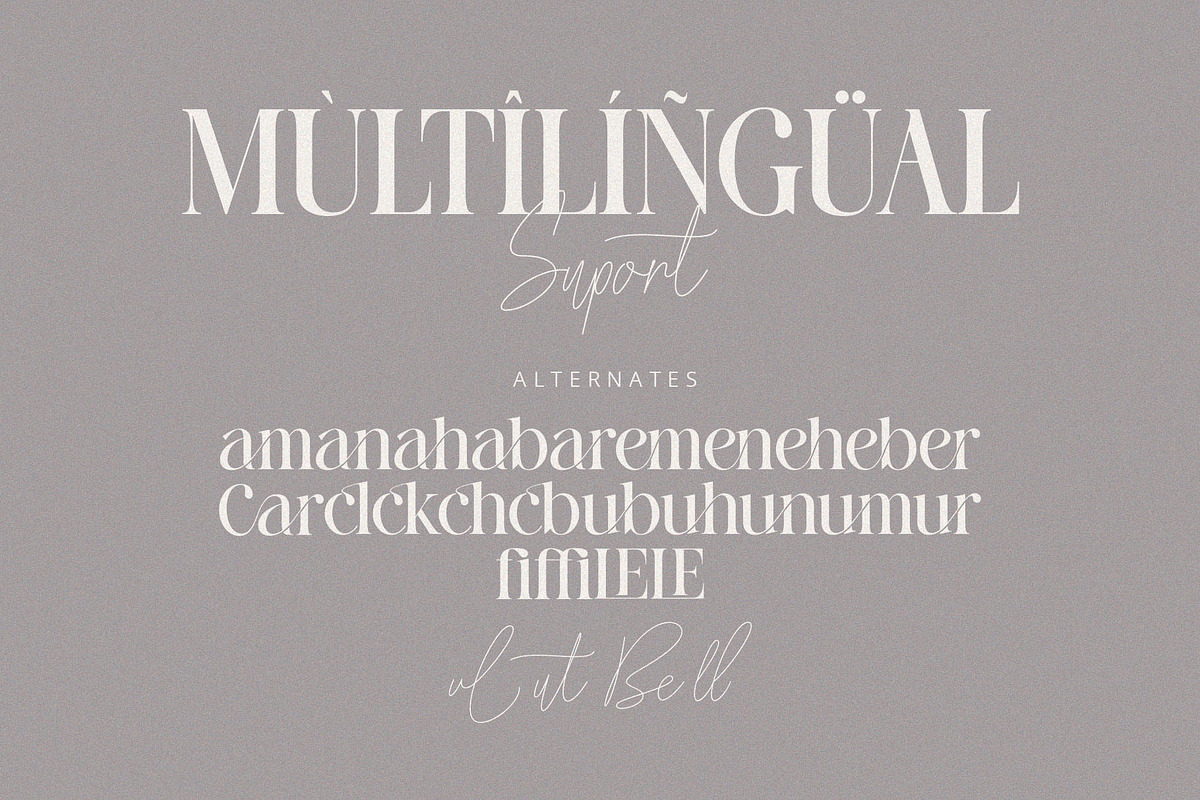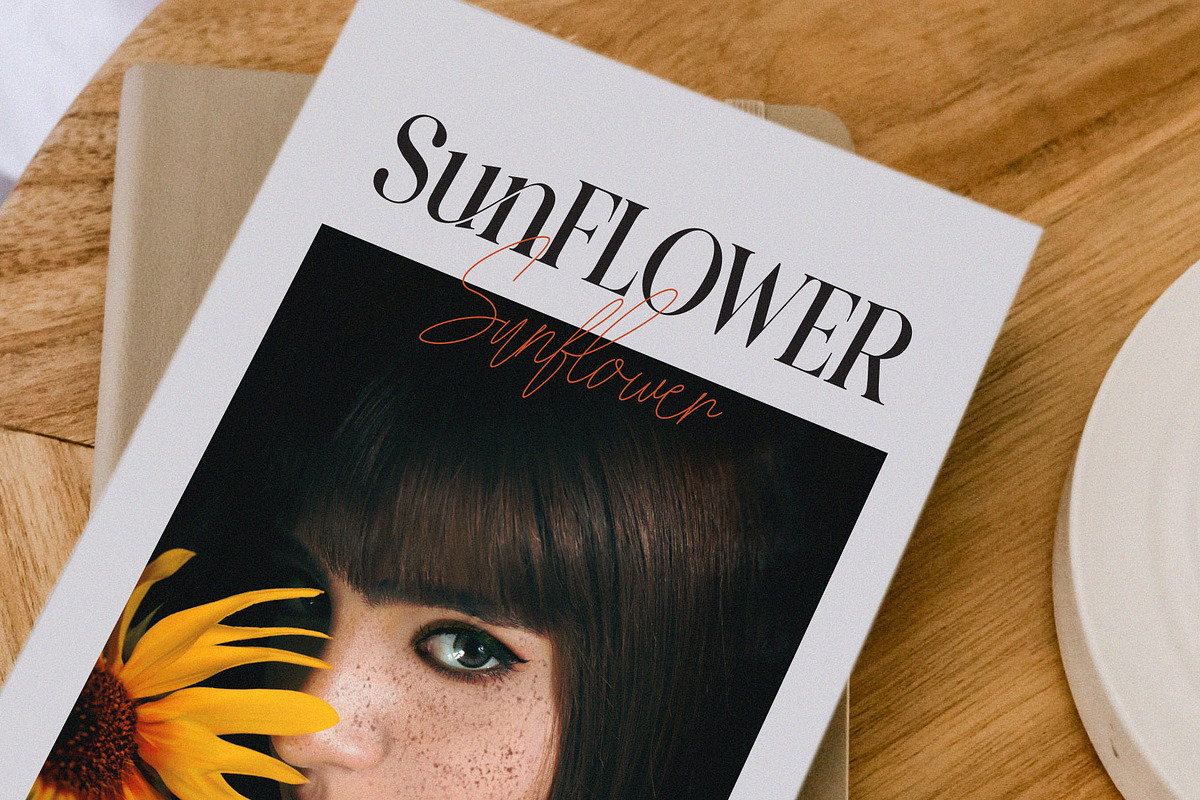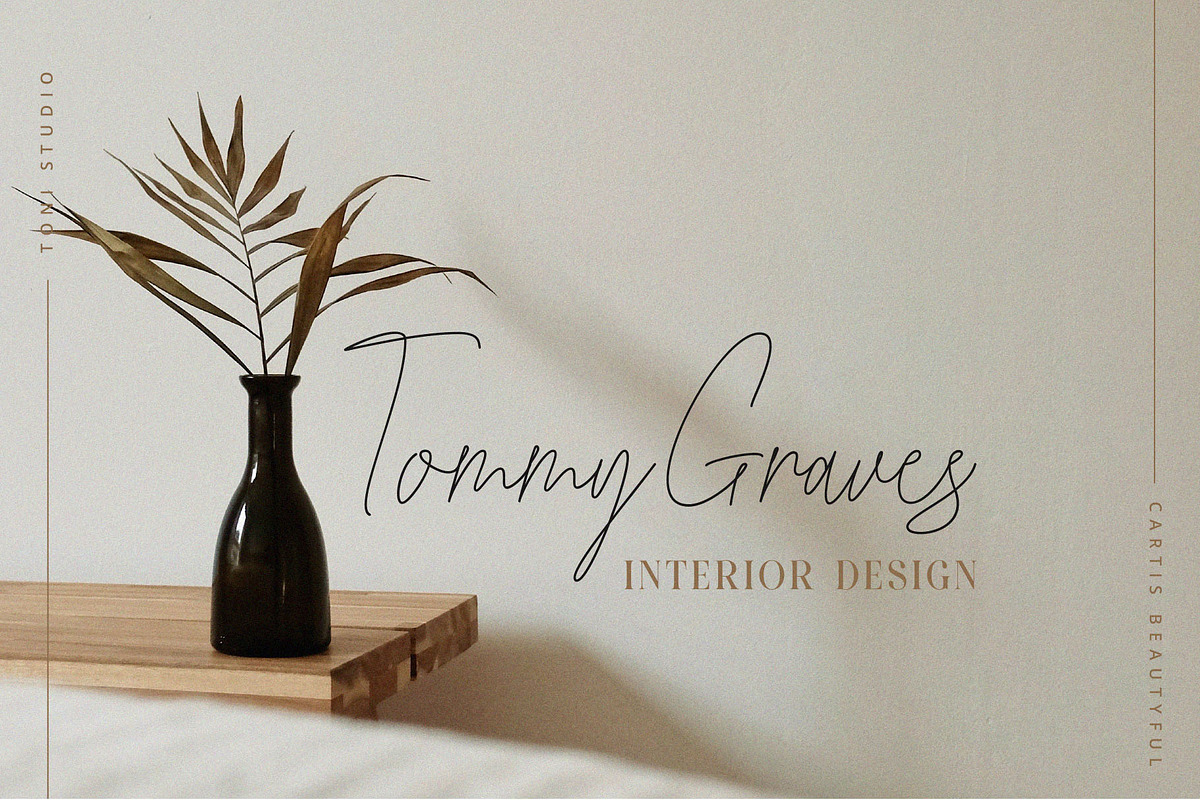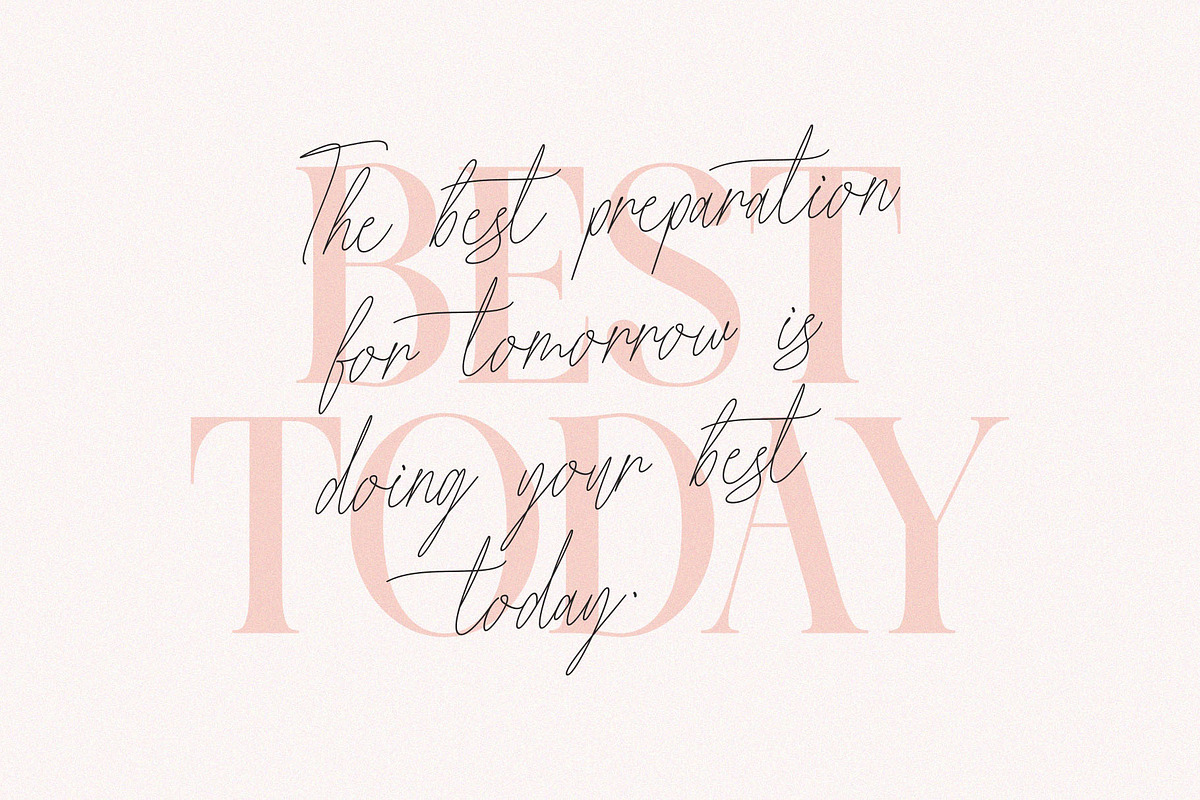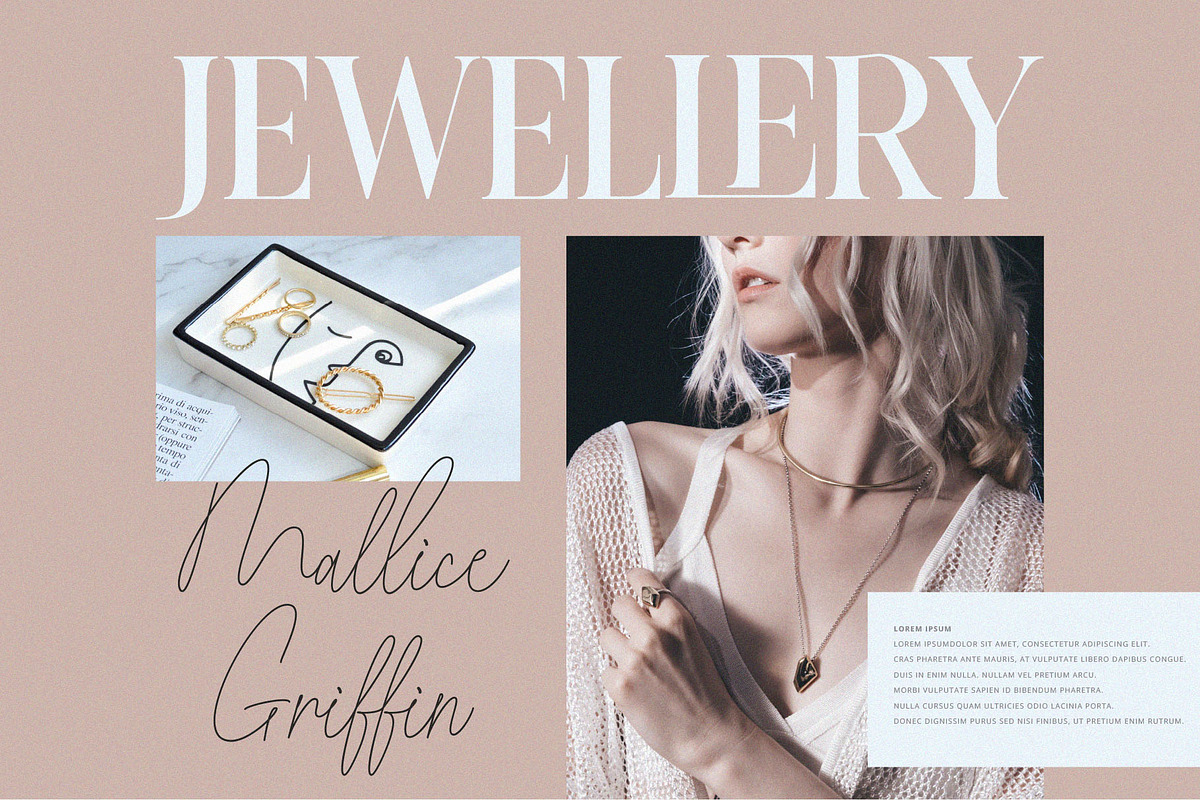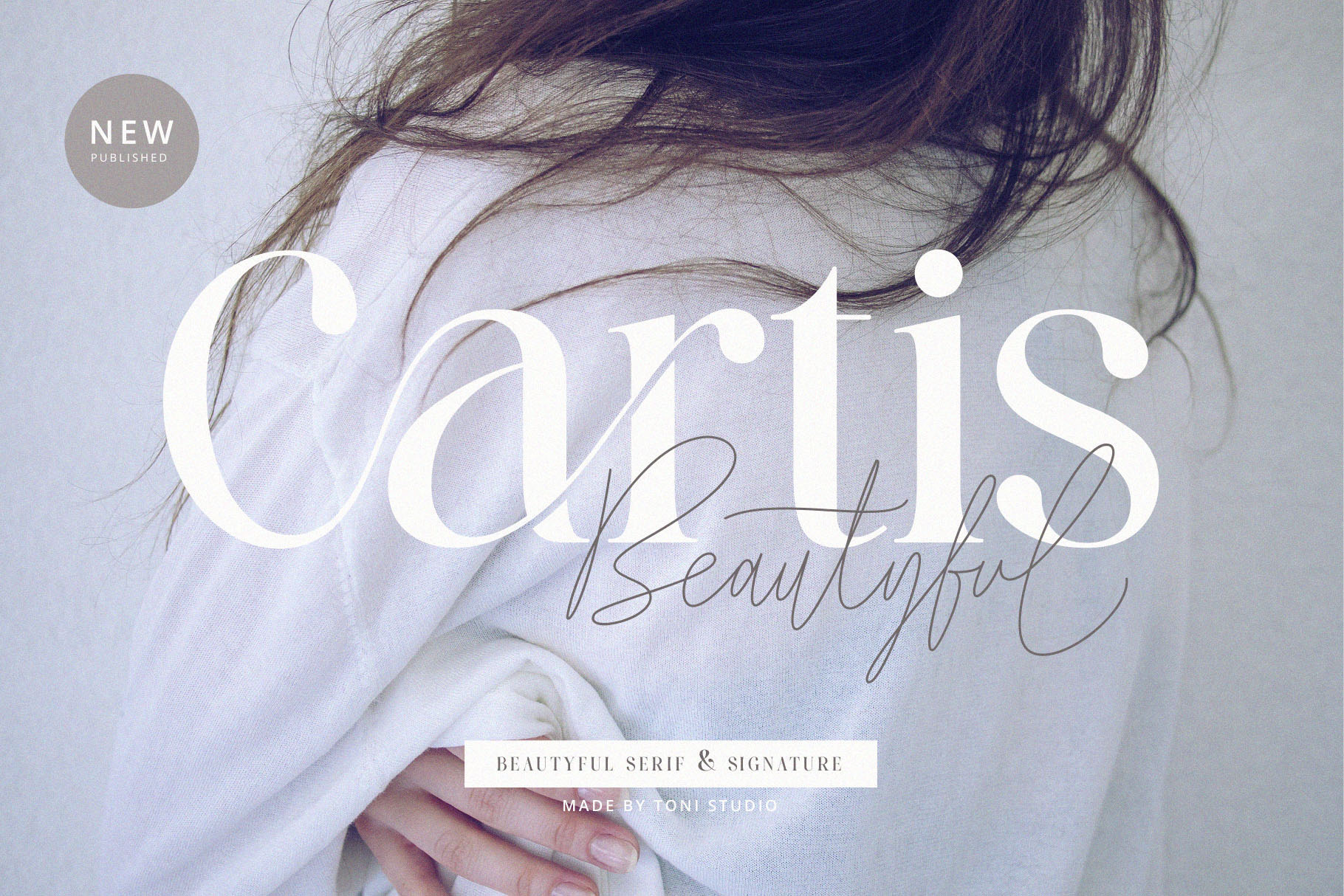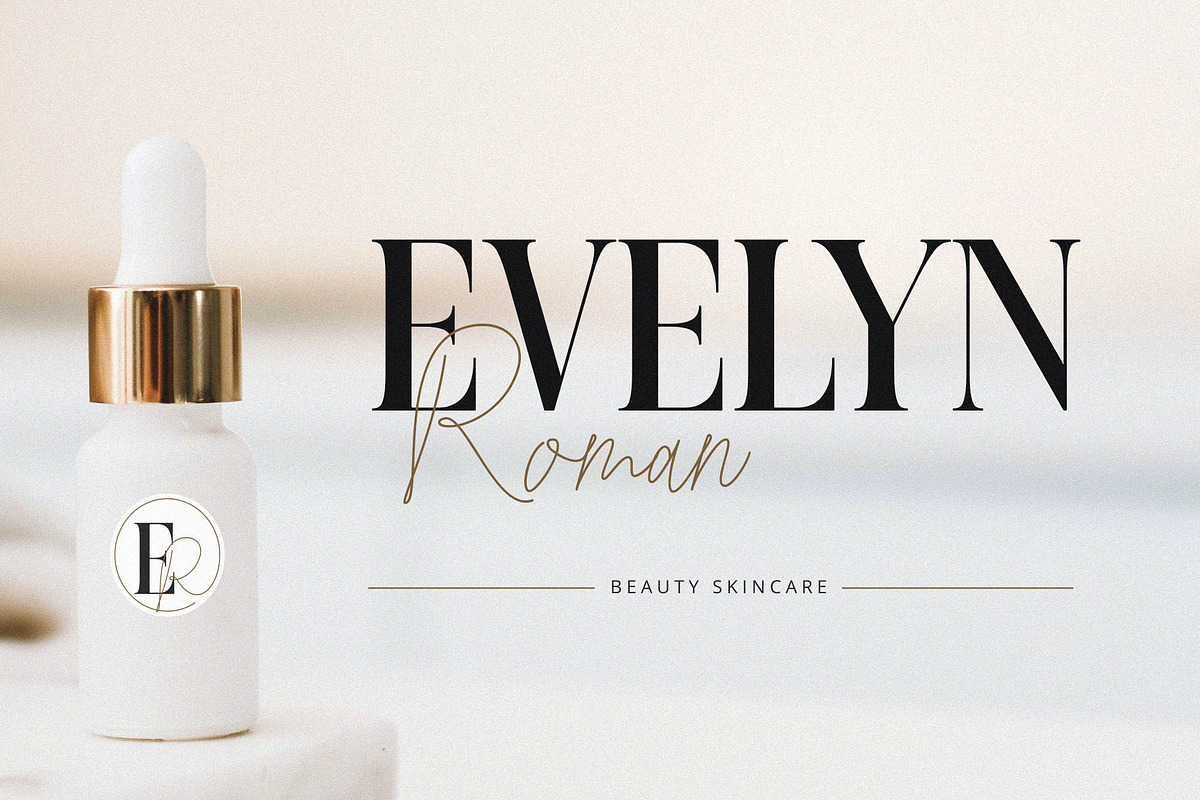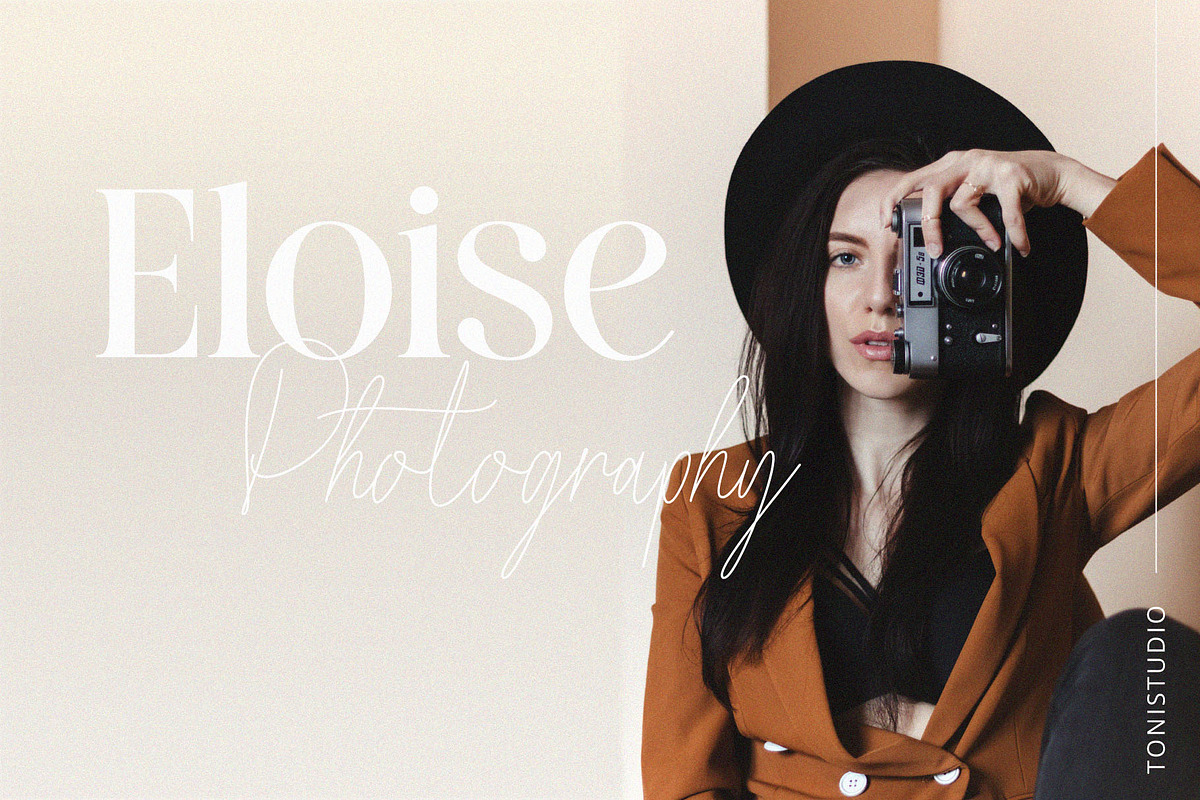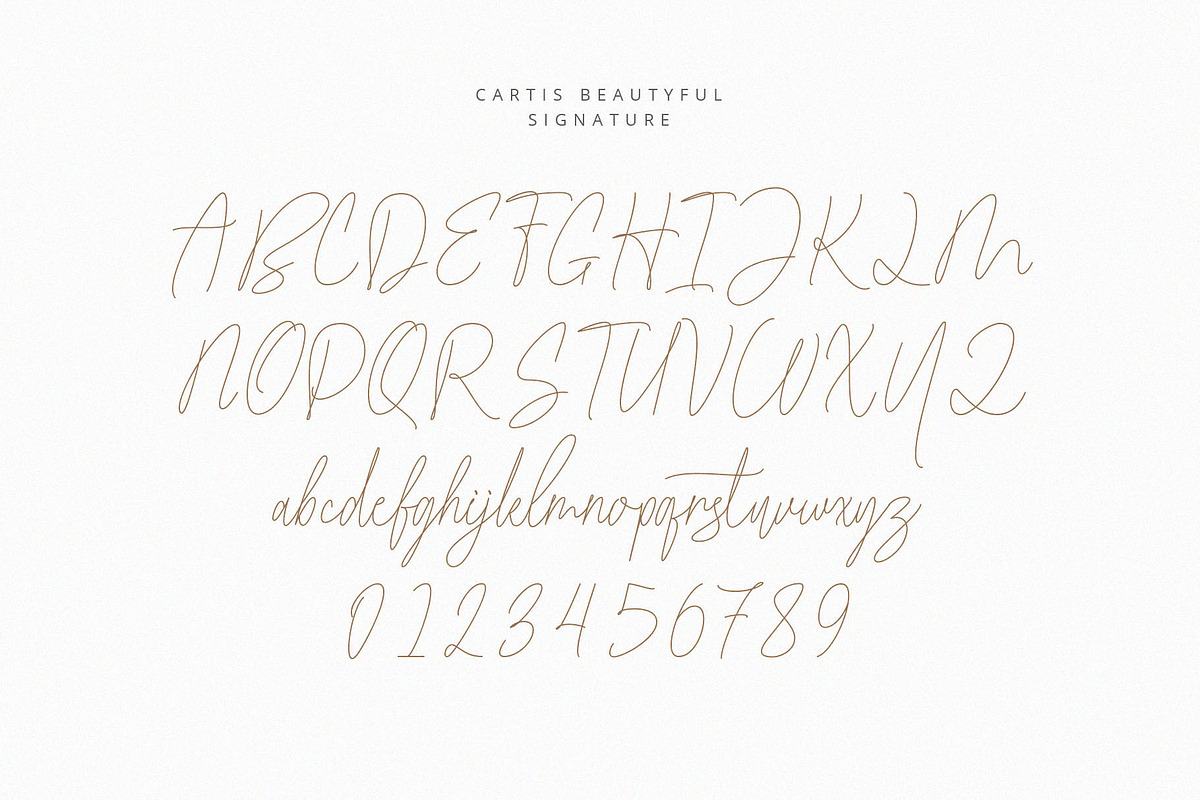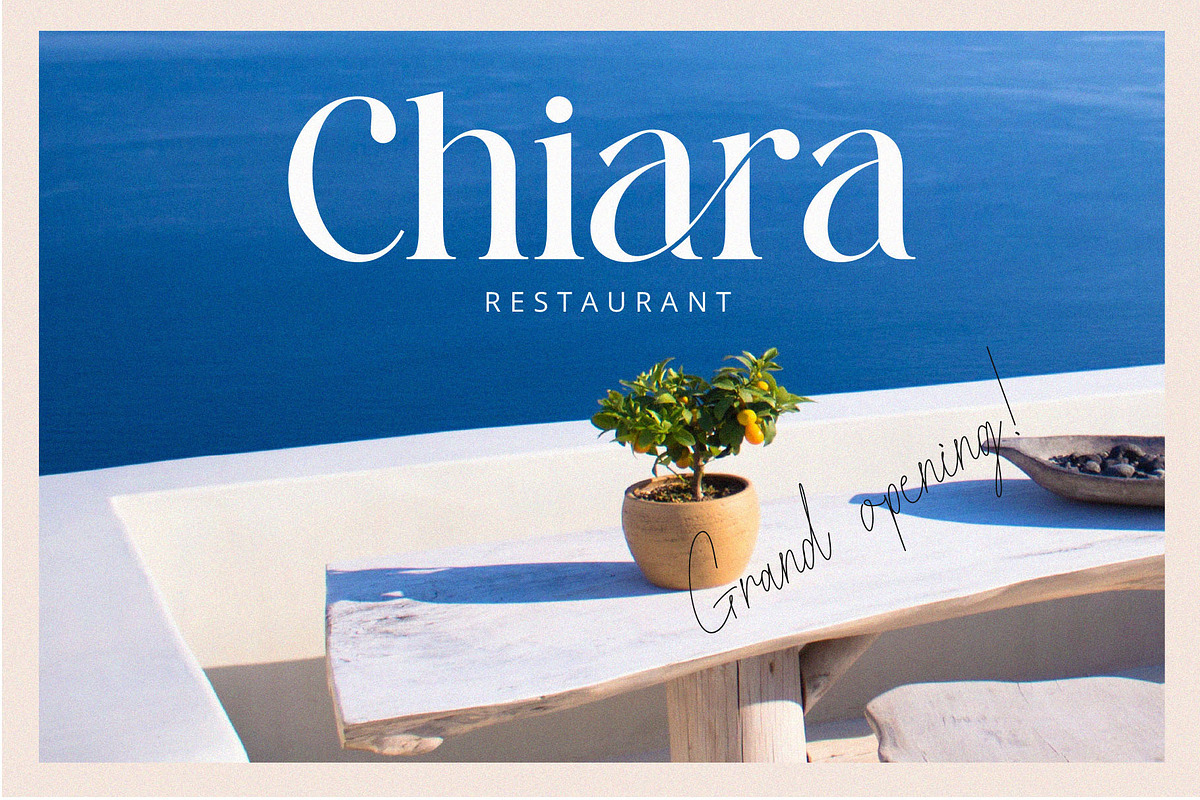
Cartis Beautyful Font Duo
Introducing the Cartis Beautyful Font Duo, which is a mix of a serif and handwritten font that brings a modern and casual feel. High contrast serifs with a beautiful alternative flow combined with natural handwritten script are perfect for adding a modern and elegant style. perfect for titles, logos, apparel, invitations, branding, packaging, advertising, etc. This beautiful font will engage your audience and make promotions stand out in your projects.
Cartis Beautyful is built with OpenType features and includes ligatures, alternatives, numbers, punctuation, and also supports other languages.